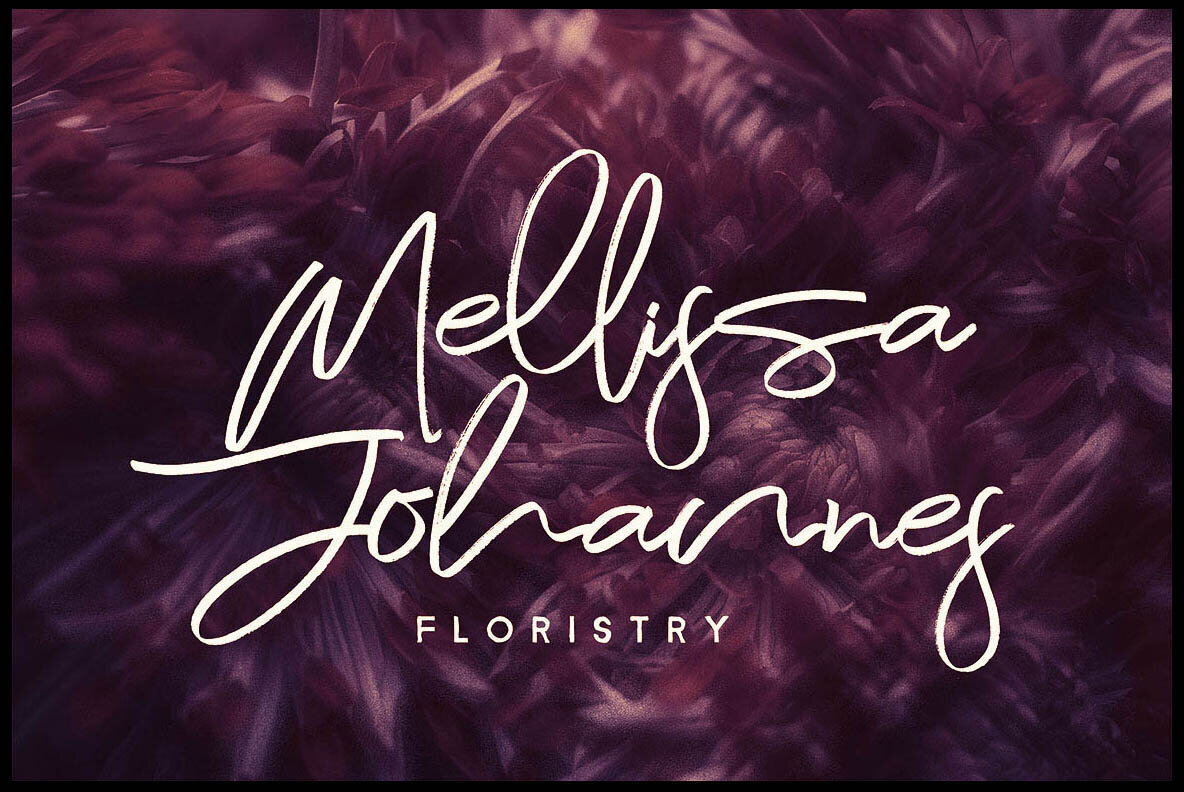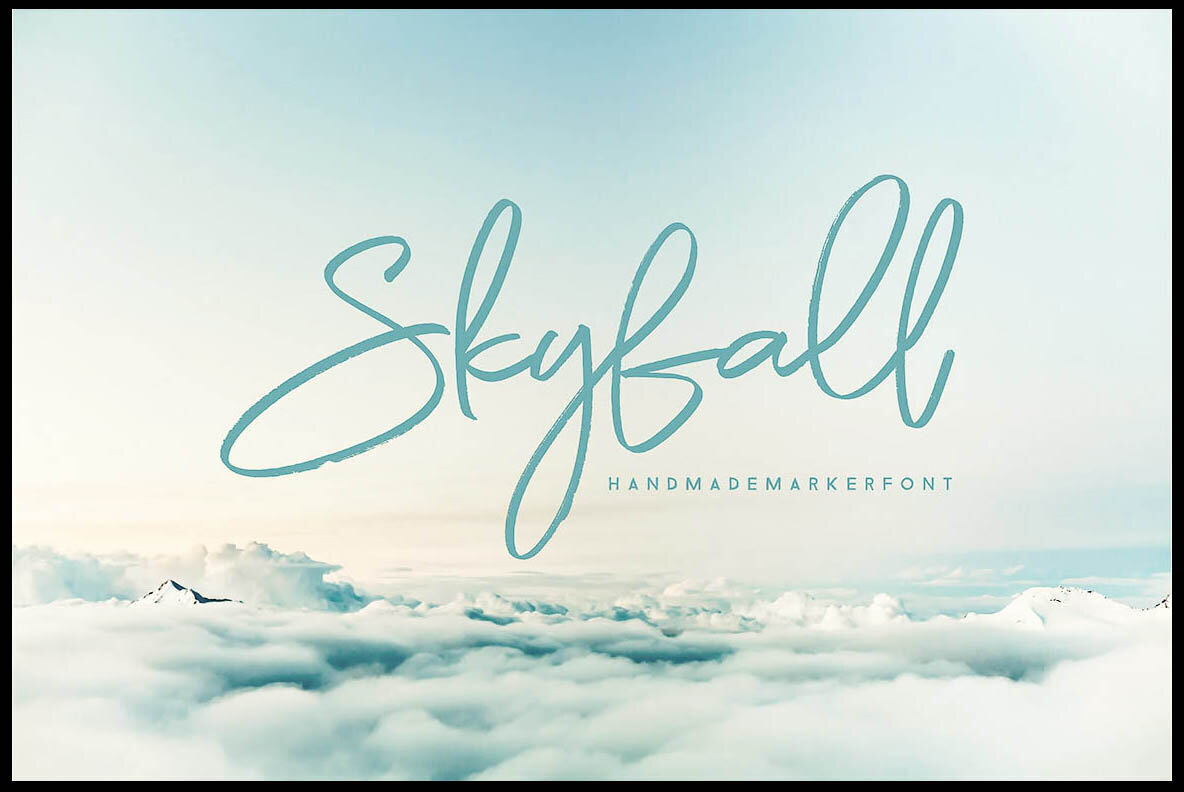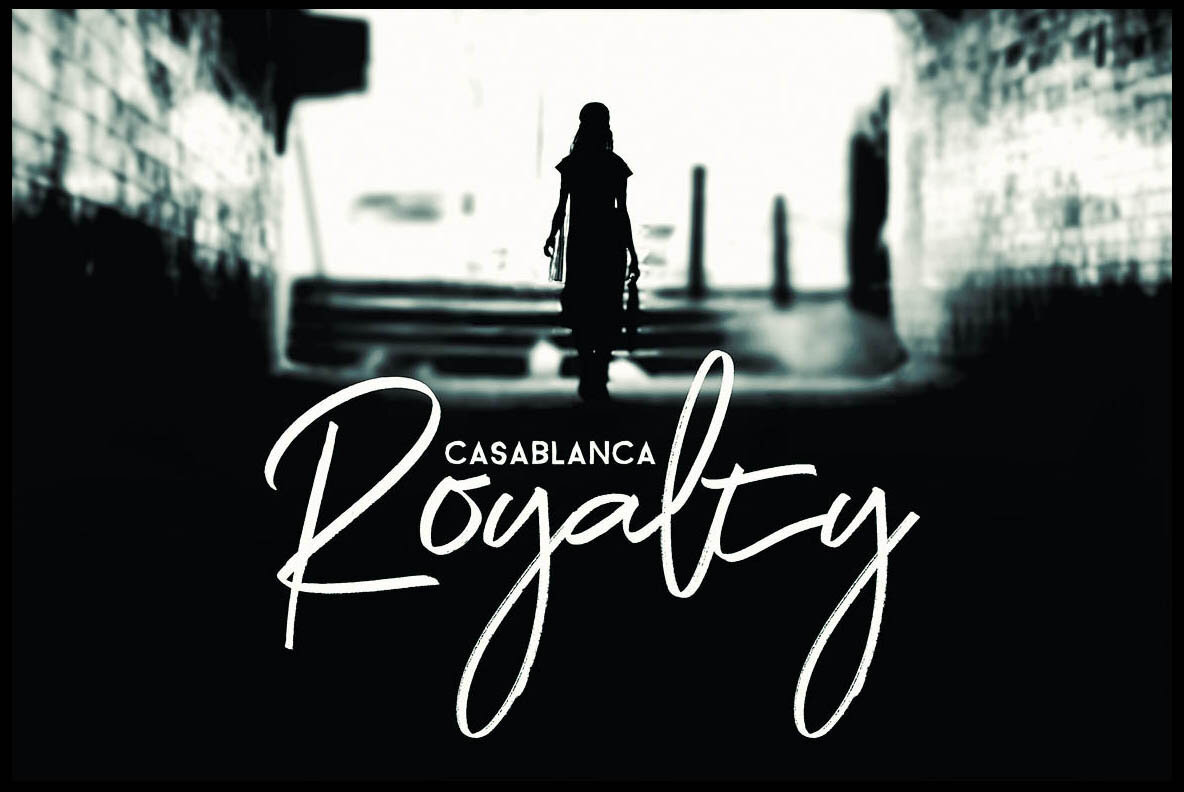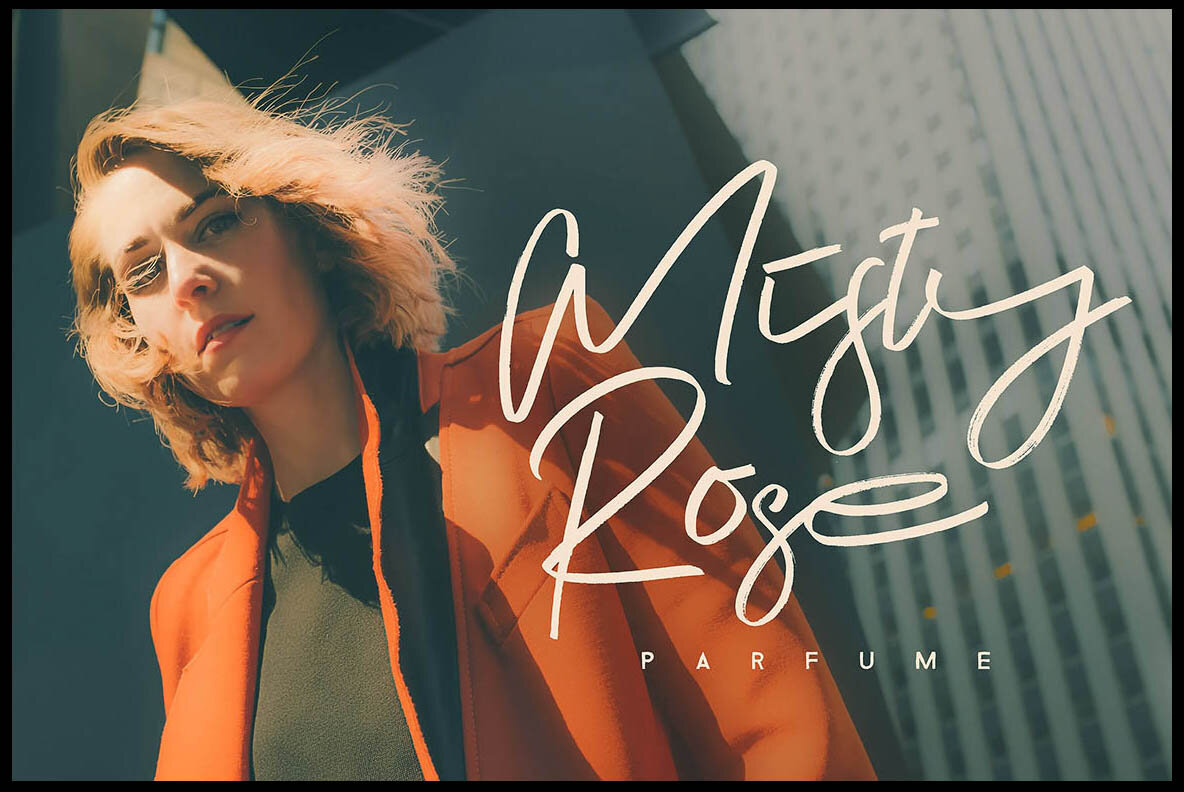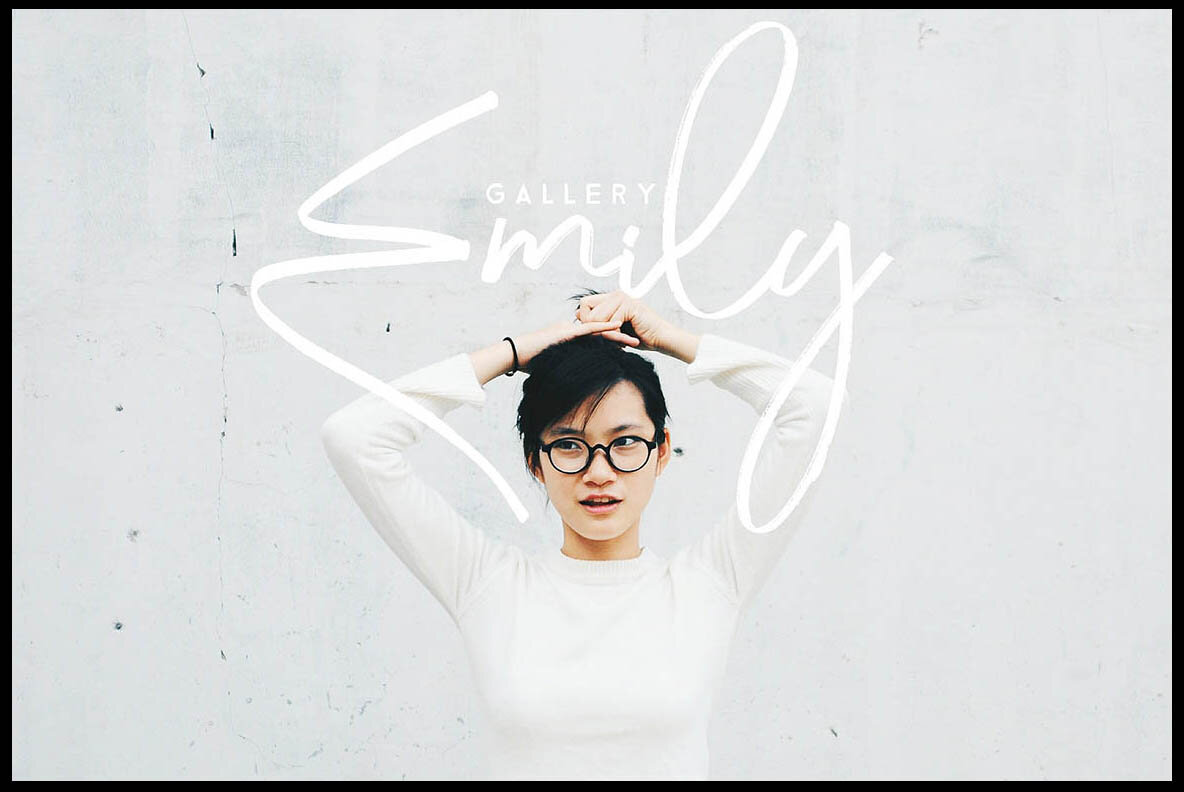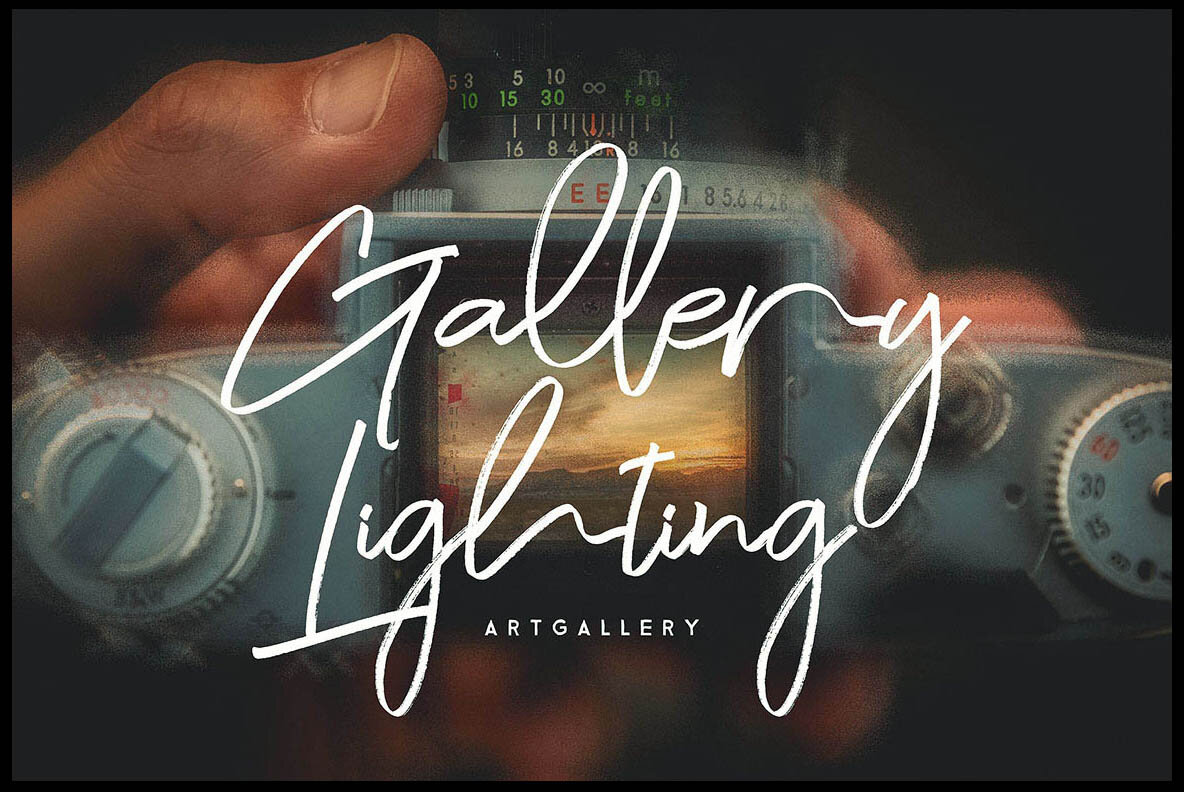
Night Flight: Handwritten Brush Style Display Font
Night Flight is a cool handwritten brush style font featuring a dynamic, dancing baseline, perfect for enhancing your creative projects. Whether you're working on grunge or artistic designs, this font will add a unique and expressive touch.
• Handwritten Brush Style – Offers a natural and artistic appearance.
• Dancing Baseline – Provides a lively and engaging text flow.